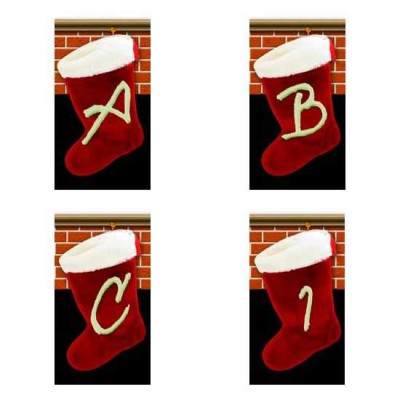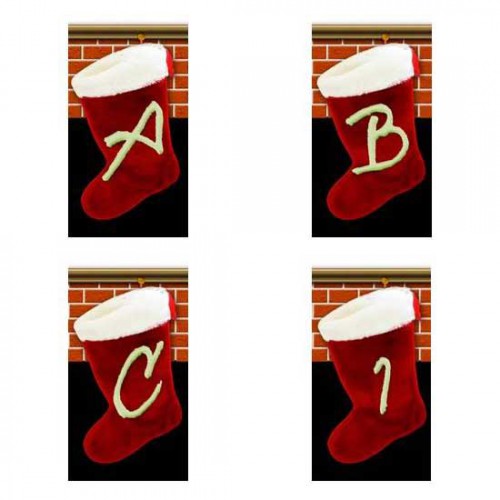
Christmas is here and the stockings are hung in a row. Realistic stockings will definitely put you in the Christmas spirit! Your holiday paper crafting ideas will come to life using this digital alphabet. Make a gift tag, candle wrapper, label, place card, door hanger or candy bar wrapper. It's perfect for personalized all your holiday neighbor gifts.